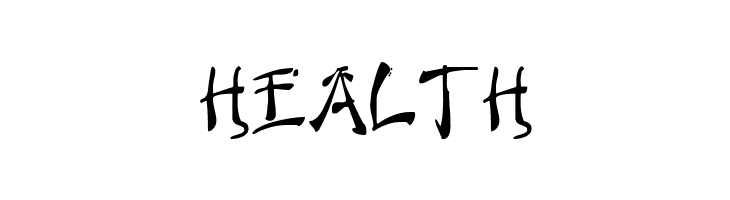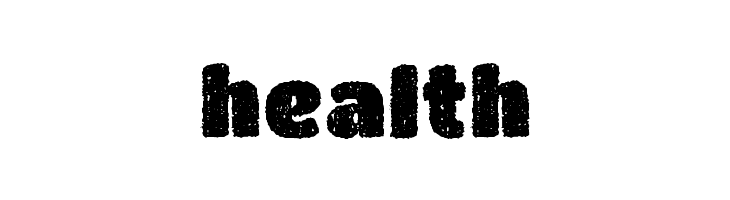
Bushido Font
A bold, calligraphic font with sharp, angular strokes and dynamic movement.
Bushido Bold Font
A bold, brush-like font with dynamic, calligraphic strokes.
DCC - Bushido Font
A bold, distressed font with a vintage, rugged texture.
Bushido Shadow Font
A bold, brush-style font with a shadow effect, combining traditional calligraphy with modern flair.
Bushido Shadow Italic Font
A bold, italicized font with a shadow effect, offering a dynamic and modern style.
Bushido Bold Italic Font
A bold, italicized font with a dynamic, brush-like style.
Bushido Italic Font
A bold, italicized font with calligraphic influences and dynamic strokes.
Bushido Bold Leftalic Font
A bold, left-leaning italic font with a brush-like, artistic style.
Bushido Leftalic Font
A bold, calligraphic font with dynamic, fluid strokes and sharp angles.
BushidoType Font
A bold, angular font with sharp edges and dynamic movement.